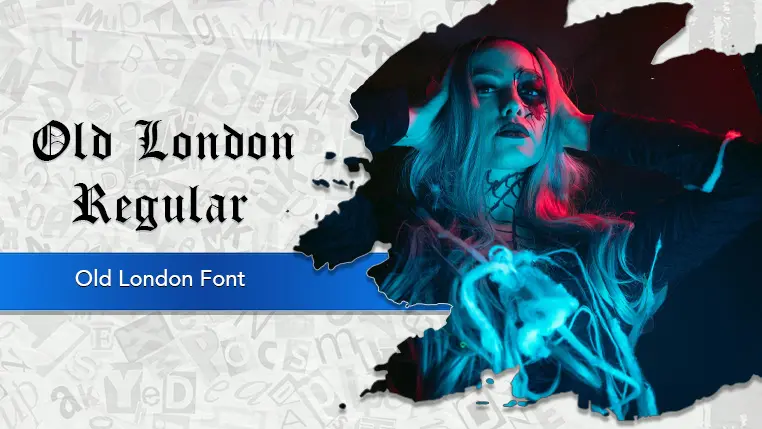
The Old London font family may be ideal for you if you enjoy working on an artistic design project. The lively, expressive look of this typeface, which was created by Dieter Steffmann, makes it ideal for Tattoo designs, Heavy metal or Goth band logos and album art, Fantasy book covers and titles, Video game titles or UI elements, Halloween decorations or event posters, Themed restaurant or pub signage, Formal and Traditional Documents, Certificates, diplomas, or awards, Formal invitations for very specific, historically themed events, Decorative Headings & Short Phrases and other light-hearted visual projects.
Regular, Regular are the three primary font styles of the Old London font family. You may build dynamic, visually appealing text layouts with the distinct flair that each style offers. With crisp, readable lines and a relaxed tone.